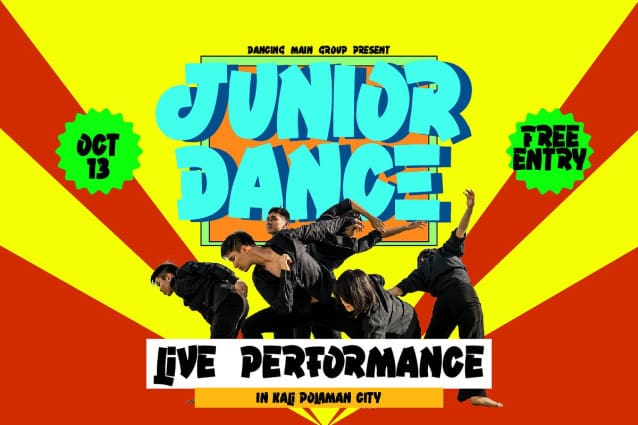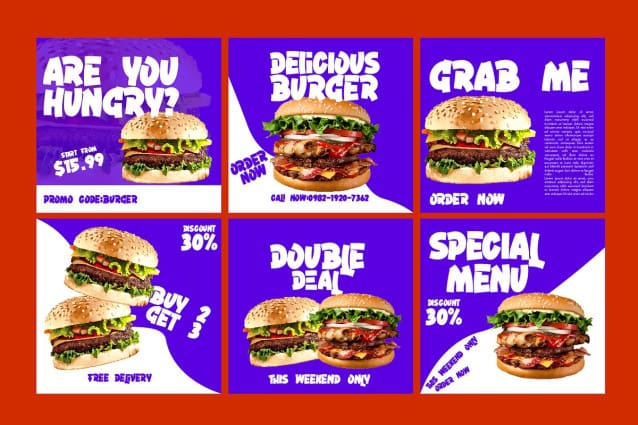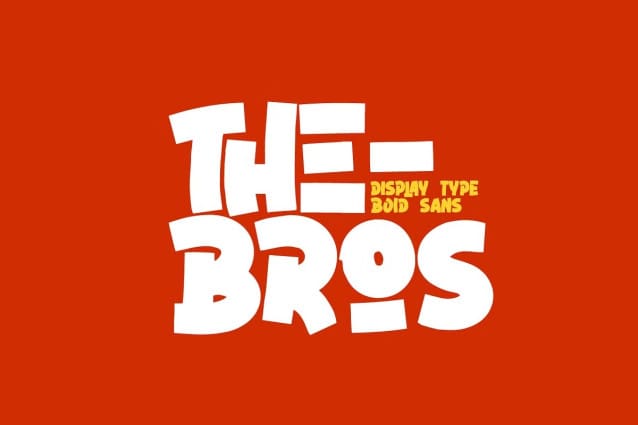
TheBros Display Font
TheBros Display Font which has a unique and cute comic-looking design. You can use TheBros in modern and contemporary designs, and are suitable for use on various media such as stickers, posters, covers, typography and other digital media.